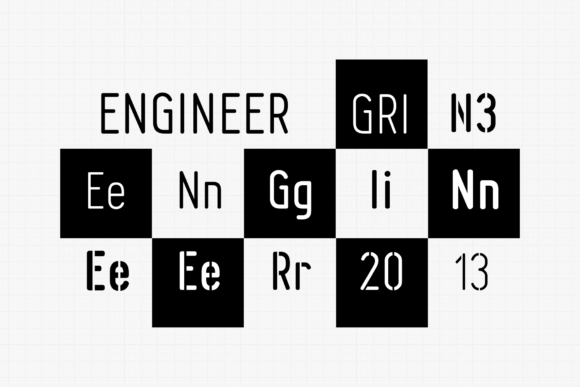
Dive into a world of modern typography with Engineer Family Font, the ultimate sans serif font family that redefines readability and sophistication. Crafted with meticulous precision by grin3, Engineer Family Font is not just a collection of letters; it's an expression of creativity, innovation, and boundless possibilities.
Step into a realm where words dance with elegance and clarity, where your designs come alive with a touch of modernity. Engineer Family Font is the perfect choice for those who seek a font family that effortlessly blends aesthetics with functionality. Its clean lines and crisp curves create a visual symphony that captivates and engages, leaving a lasting impression on your audience.
With Engineer Family Font, you'll discover a font family that transcends the ordinary. Whether you're crafting captivating headlines that demand attention or weaving intricate paragraphs that flow seamlessly, Engineer Family Font delivers an exceptional typographic experience that elevates your designs to new heights.
Unlock the power of Engineer Family Font and unleash your creativity. Let your words dance with newfound grace, and let your designs radiate a sense of sophistication that sets you apart from the rest. Embark on a typographic journey where clarity meets style, and where every project becomes a masterpiece.